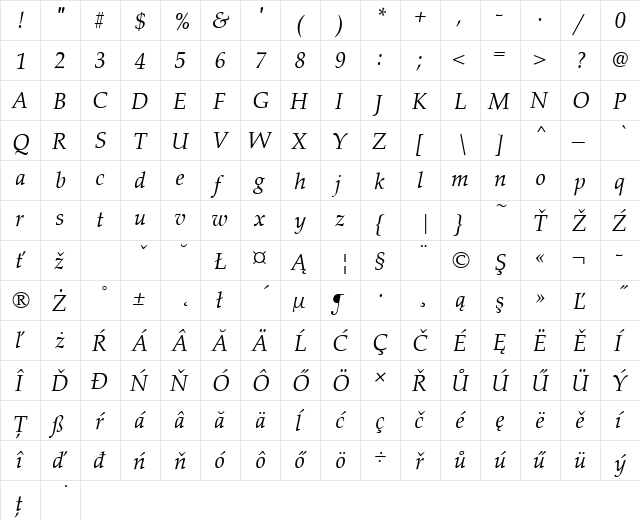
URWPalladioTEE Italic
Design Context for URWPalladioTEE Typeface
URWPalladioTEE offers clean, dependable letterforms without strong stylistic allegiance, making it a practical choice for designers who need flexibility. The slanted form adds forward momentum and visual energy.